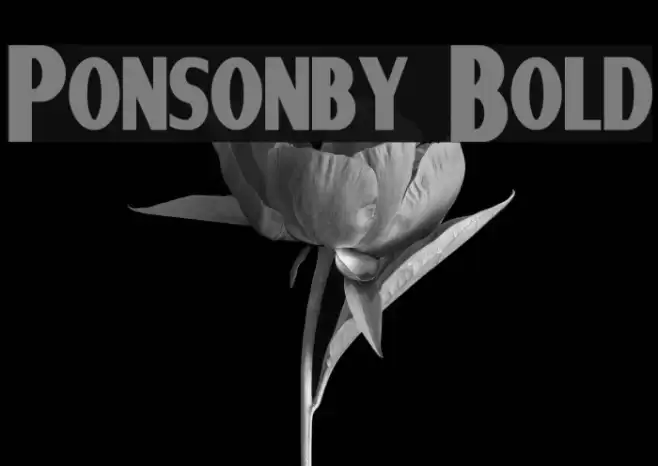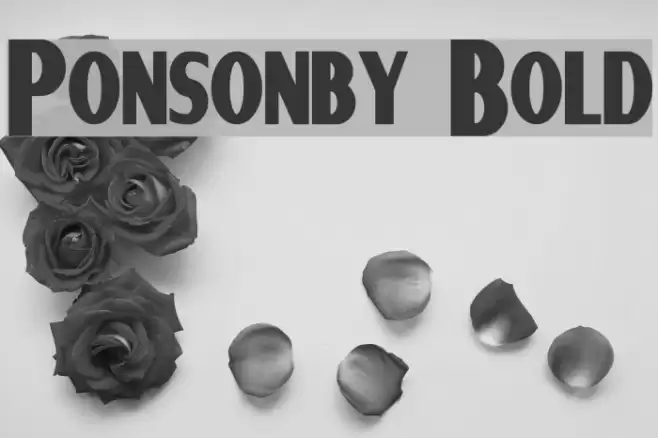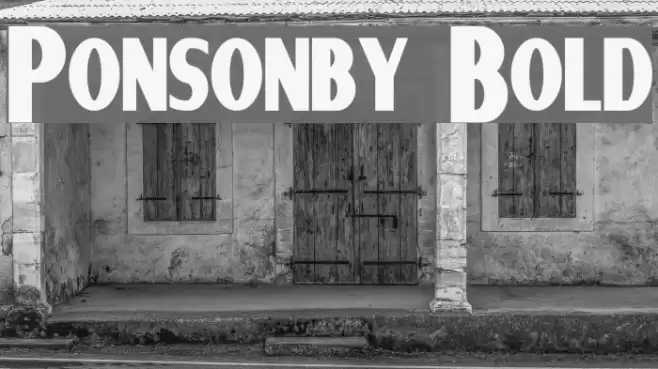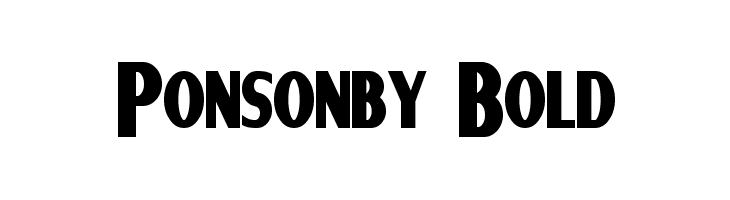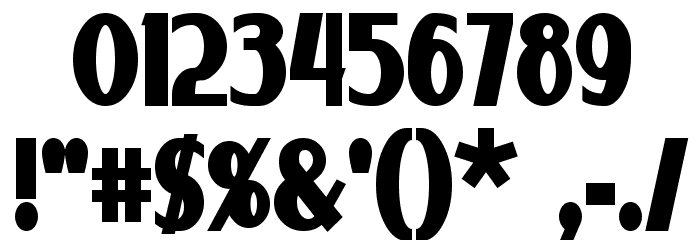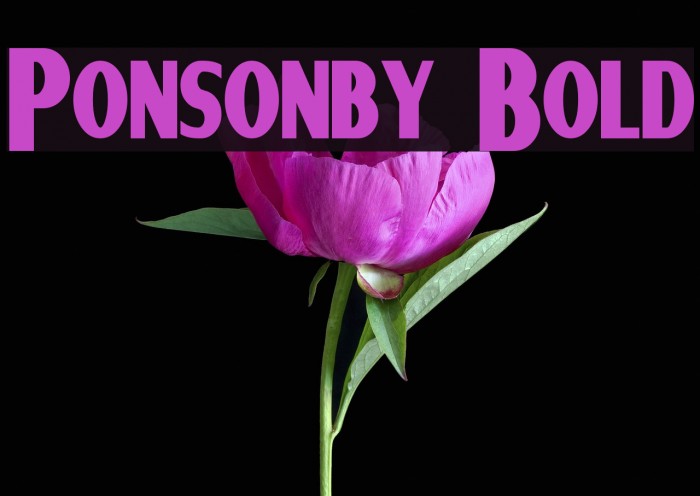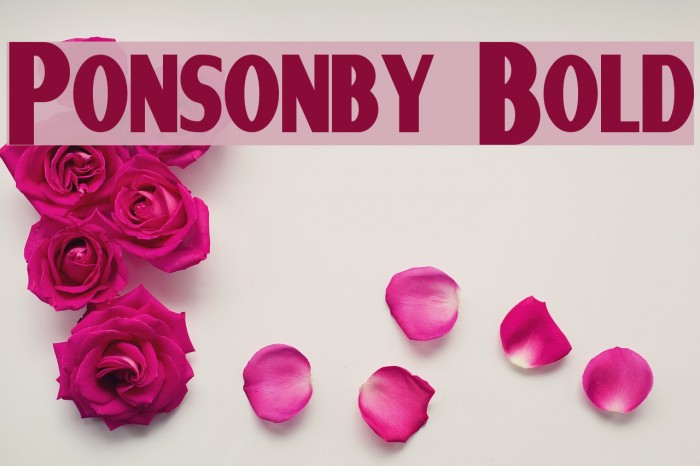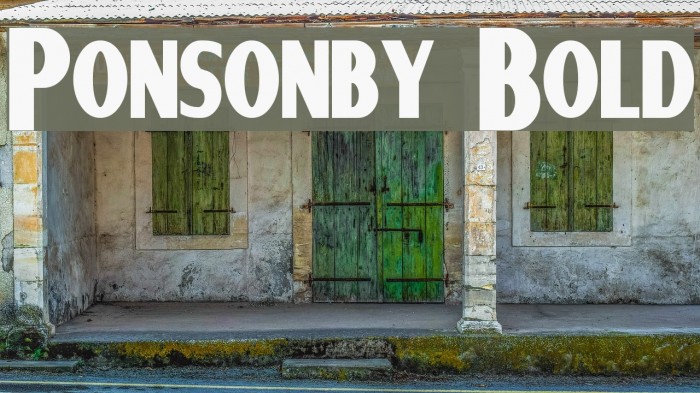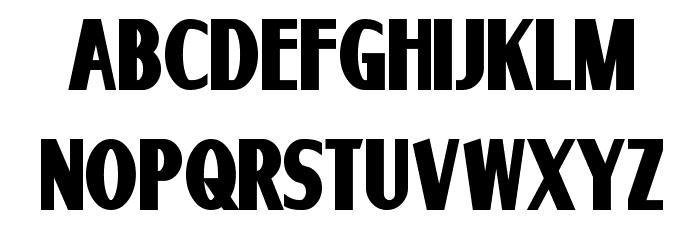
Ponsonby Bold Font
Ponsonby Bold Description
This bold and impactful font features strong, thick strokes that convey a sense of power and confidence. The uppercase letters are particularly striking, with a uniform height and width that create a cohesive and balanced appearance. The numbers and special characters maintain the same boldness, ensuring consistency across all text elements. The font's design is clean and modern, making it suitable for a variety of applications where a strong visual presence is required.
A bold, impactful font with strong, thick strokes for a powerful presence from Uncategorized fonts.
- Proposed Projects: Ideal for headlines, posters, branding materials, and any design requiring a bold statement.